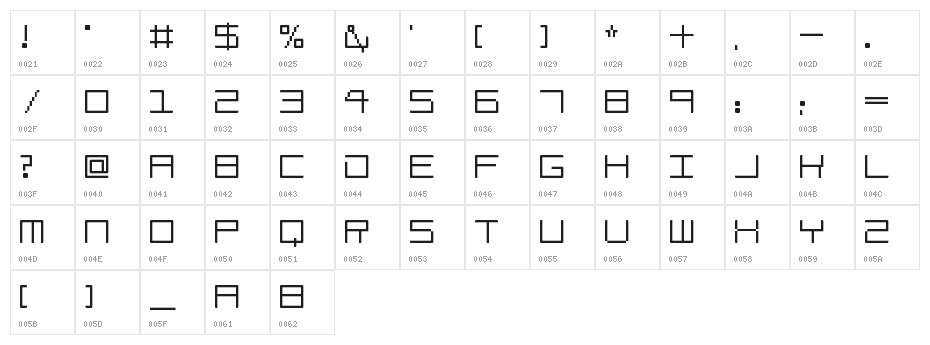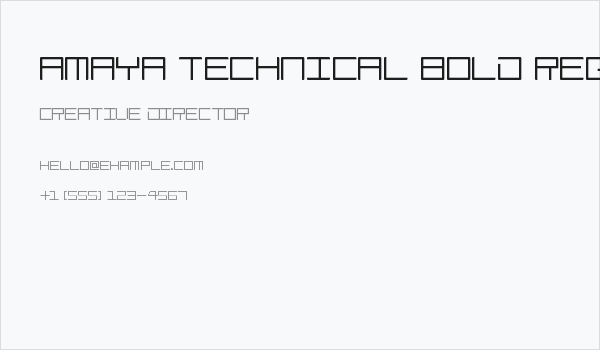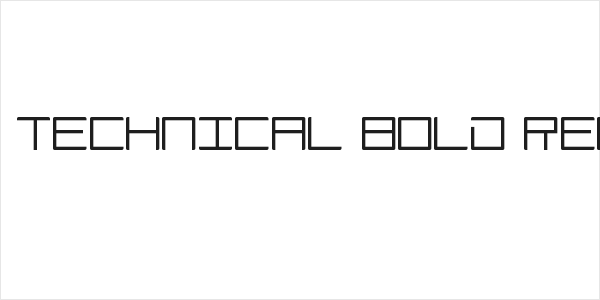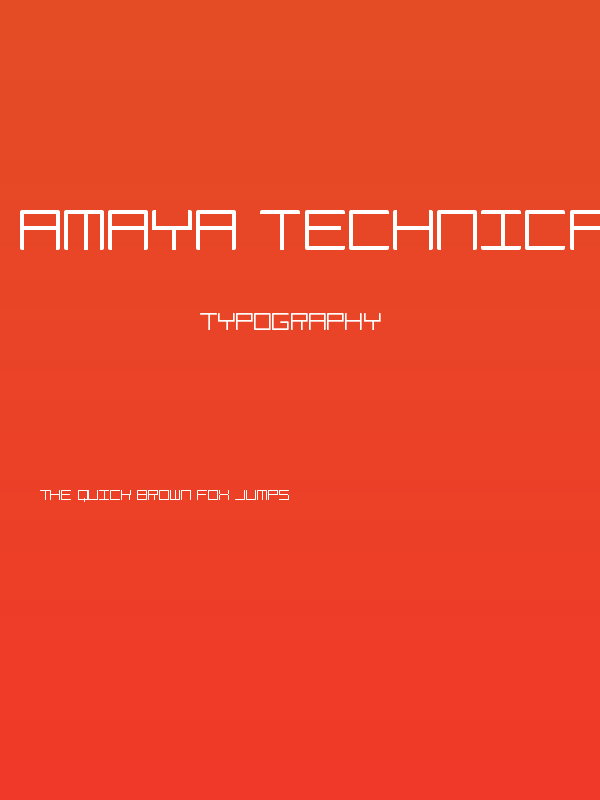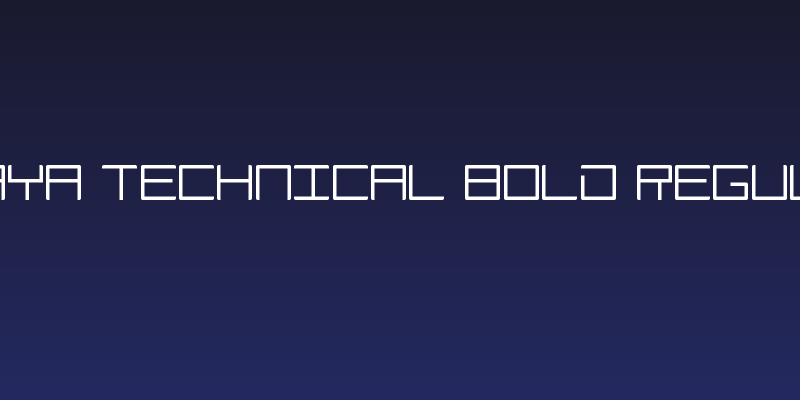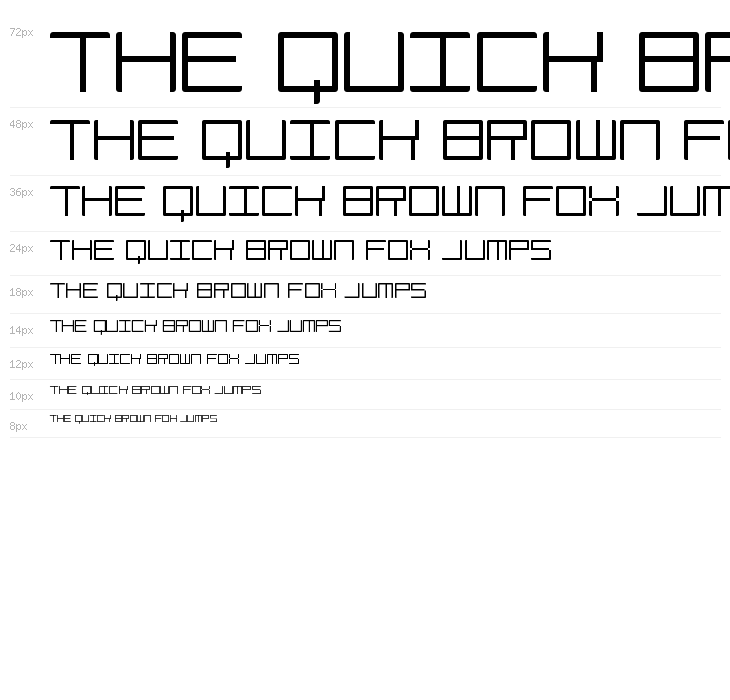
Amaya Technical Bold Regular Font
Amaya Technical Bold Regular Description
This font features a technical and geometric design, characterized by its clean, grid-like structure. The characters are composed of straight lines and right angles, giving it a precise and modern appearance. The uppercase and lowercase letters maintain a consistent height, contributing to a uniform look. The numerals and special characters follow the same structured style, ensuring readability and clarity. This font's design is reminiscent of digital or technical displays, making it suitable for contexts where a futuristic or industrial aesthetic is desired.
| Use Case | Headlines, Technical documents, Digital displays |
| Proposed Projects | Ideal for technical documents, digital interfaces, engineering presentations, and modern branding. |